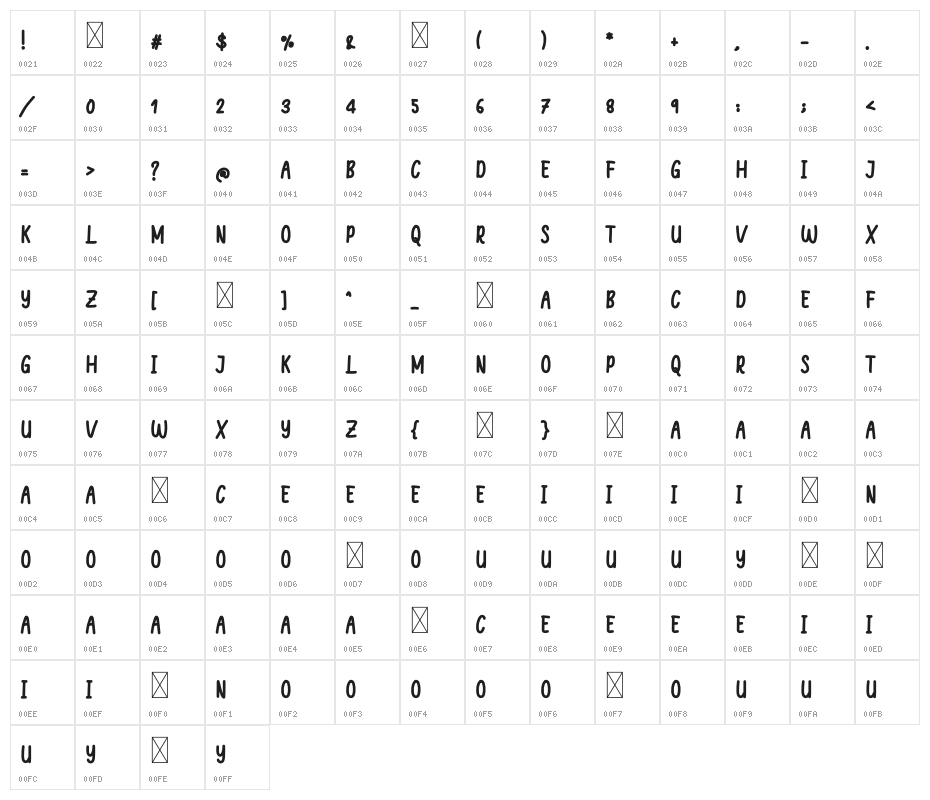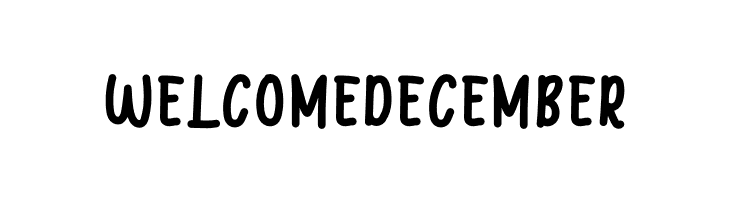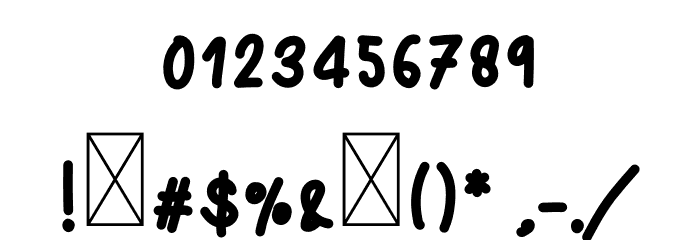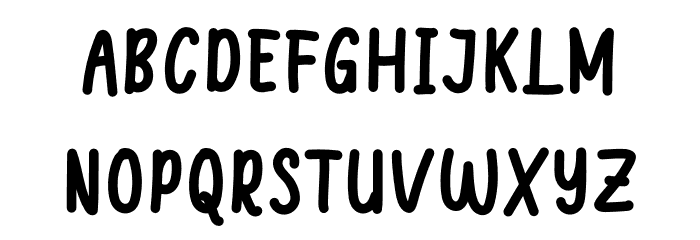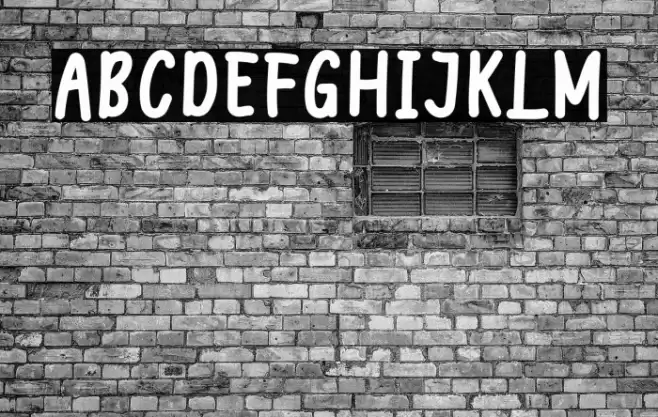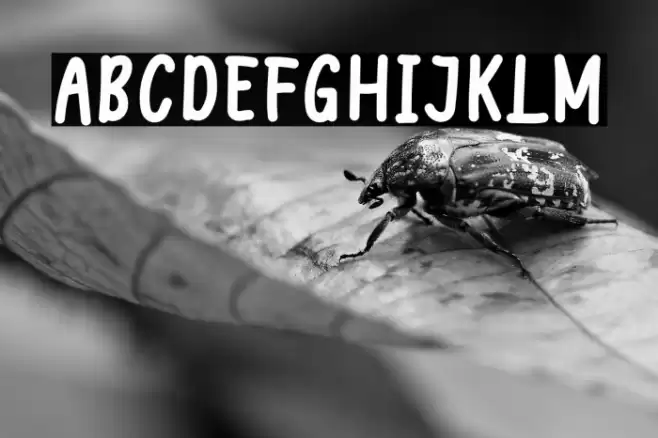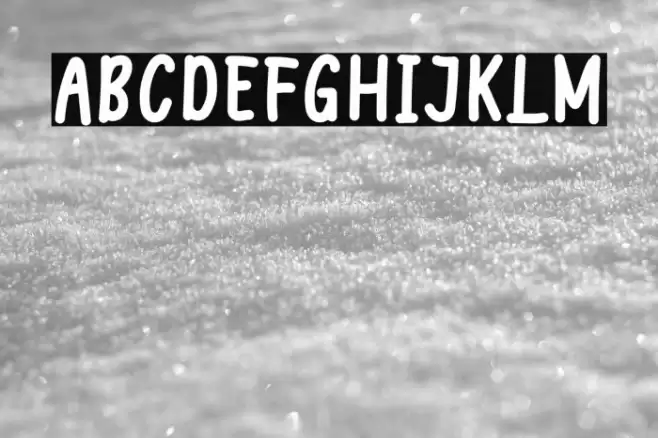
Welcome December Font
| النمط العام | Casual, Playful |
| حالة الاستخدام | Headlines, Informal text, Branding |
| مشاريع مقترحة | Ideal for greeting cards, children's books, casual branding, and social media graphics. |